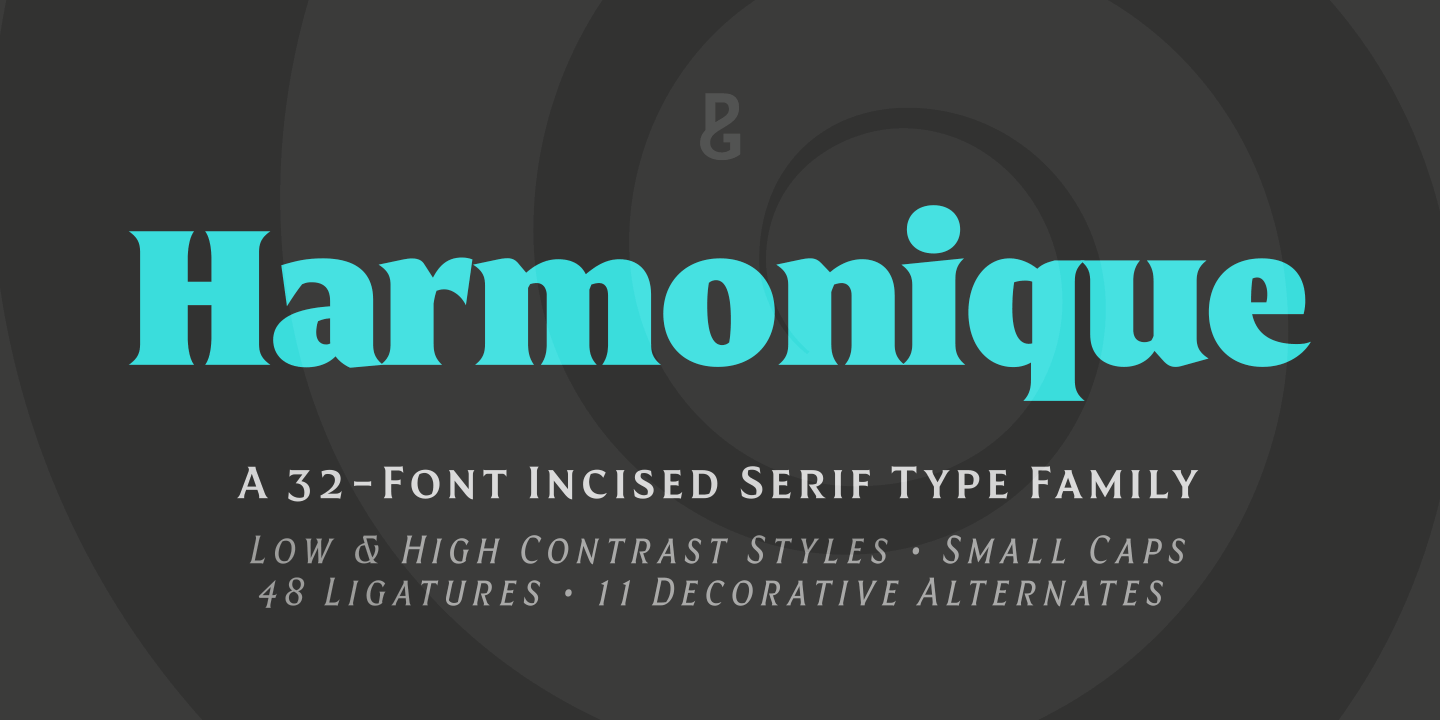
Harmonique Font is ideal for music academies, classical concert halls, orchestral organizations, fine arts institutions, elegant event planning, luxury wedding services, cultural festivals, and sophisticated entertainment venues that require musical typography with artistic grace and harmonious visual rhythm.
What makes Harmonique Font exciting is its extraordinary ability to translate musical harmony into visual typography through carefully orchestrated letterforms. This sophisticated typeface features flowing curves and balanced proportions that echo musical composition principles, making it perfect for brands seeking to communicate artistic excellence, cultural refinement, and creative harmony.
The Harmonique Font family includes light, regular, medium, and bold weights, complemented by italic variations and decorative flourishes for enhanced musical expression. Each style maintains the font's characteristic melodic flow while providing designers with comprehensive tools for creating rhythmic layouts and culturally sophisticated brand communications.
Cultural organizations consistently choose Harmonique Font Free Download for projects requiring artistic authenticity and musical sophistication. This versatile typeface seamlessly conveys creative excellence while maintaining exceptional readability, ensuring brand messages resonate with audiences seeking genuine artistic experiences and cultural enrichment opportunities.
The font's musical inspiration and artistic elegance make it particularly suitable for performing arts and cultural sectors. Harmonique Font delivers exceptional artistic impact while ensuring clear communication, offering designers a refined solution for creating memorable brand identities that communicate creativity, harmony, and cultural excellence across sophisticated arts and entertainment marketing applications.